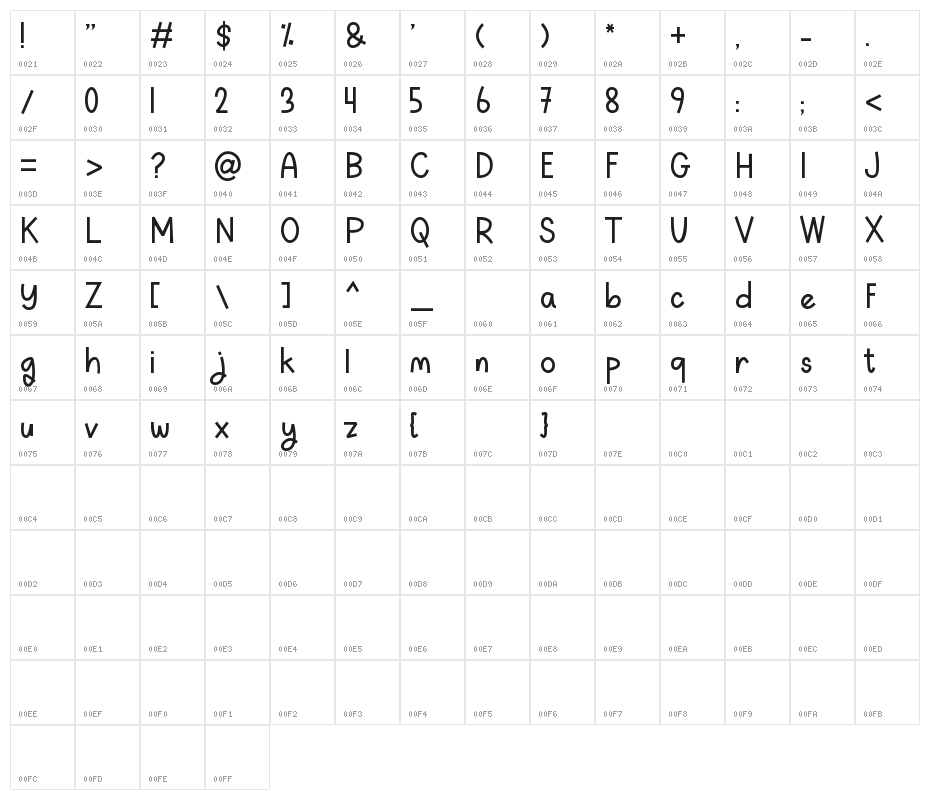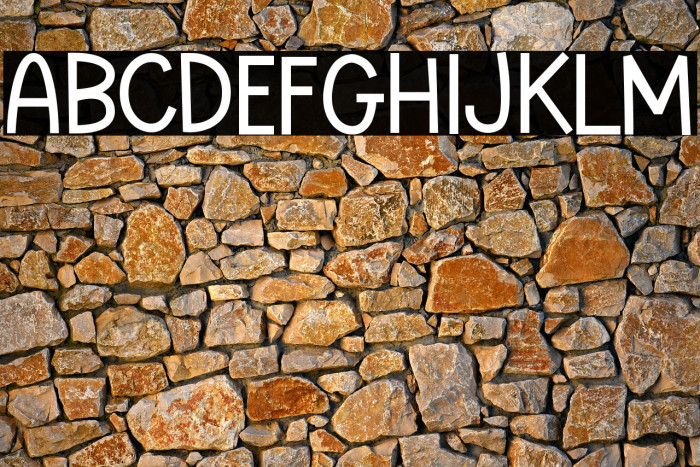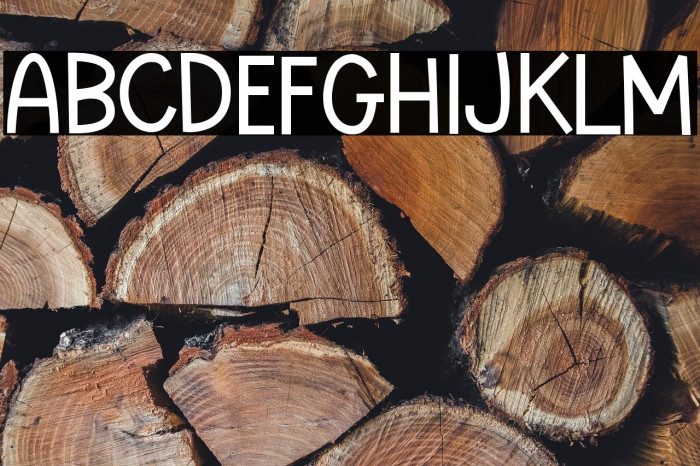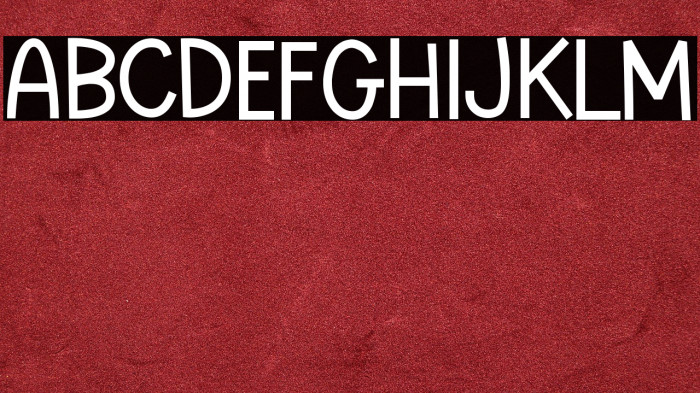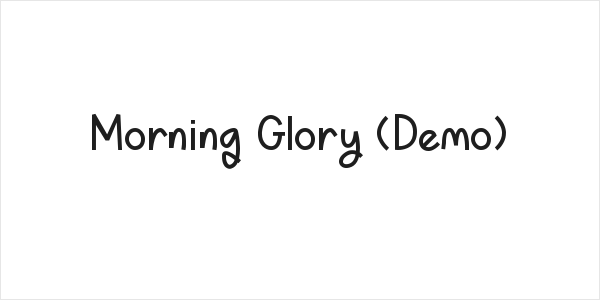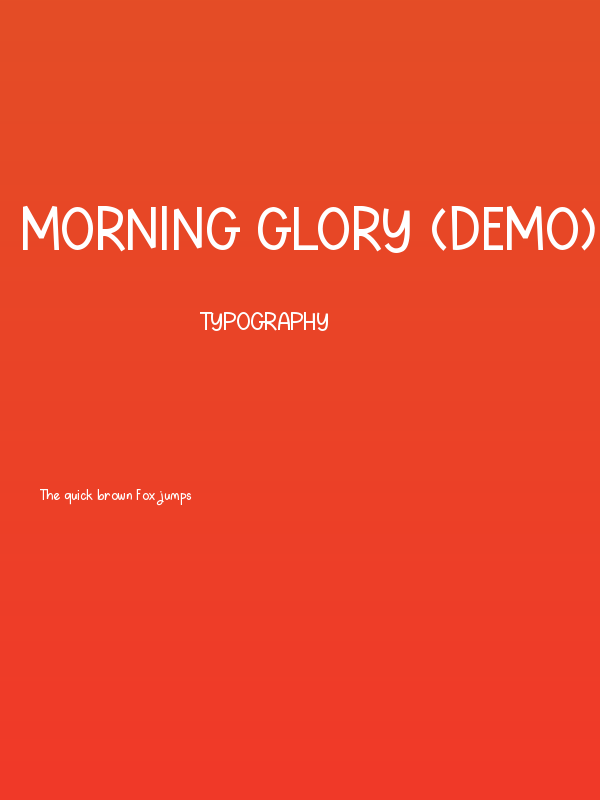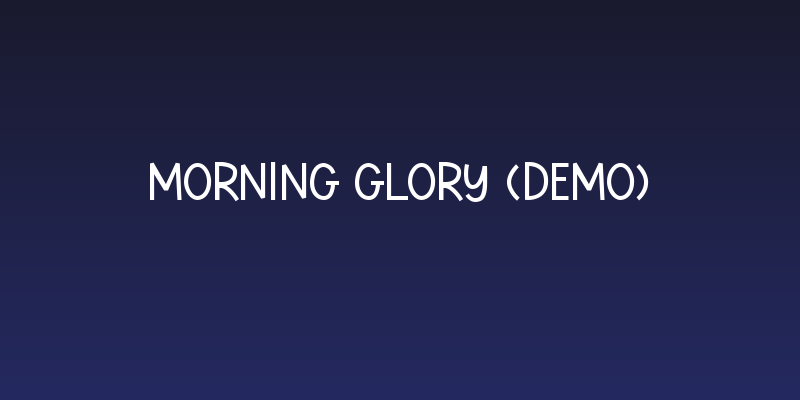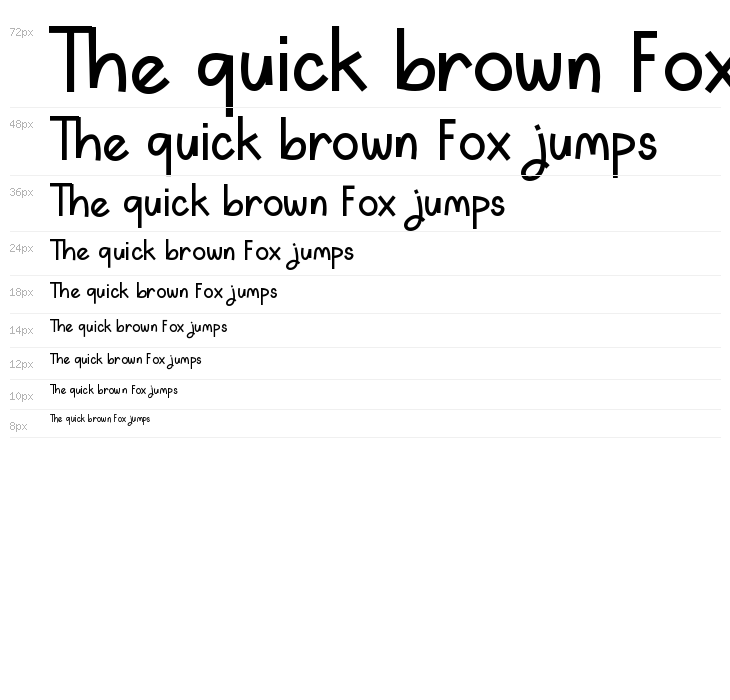
Morning Glory (Demo) Font
Morning Glory (Demo) Description
This playful and whimsical font features a handwritten style with a casual and friendly appearance. The characters are slightly irregular, giving it a natural and organic feel. The strokes are bold and consistent, creating a strong visual impact. The font maintains a balance between readability and artistic flair, making it suitable for informal and creative projects. Its unique charm is evident in the quirky curves and loops, adding a touch of personality to any design.
| Proposed Projects | Ideal for children's books, greeting cards, playful branding, and creative posters. |